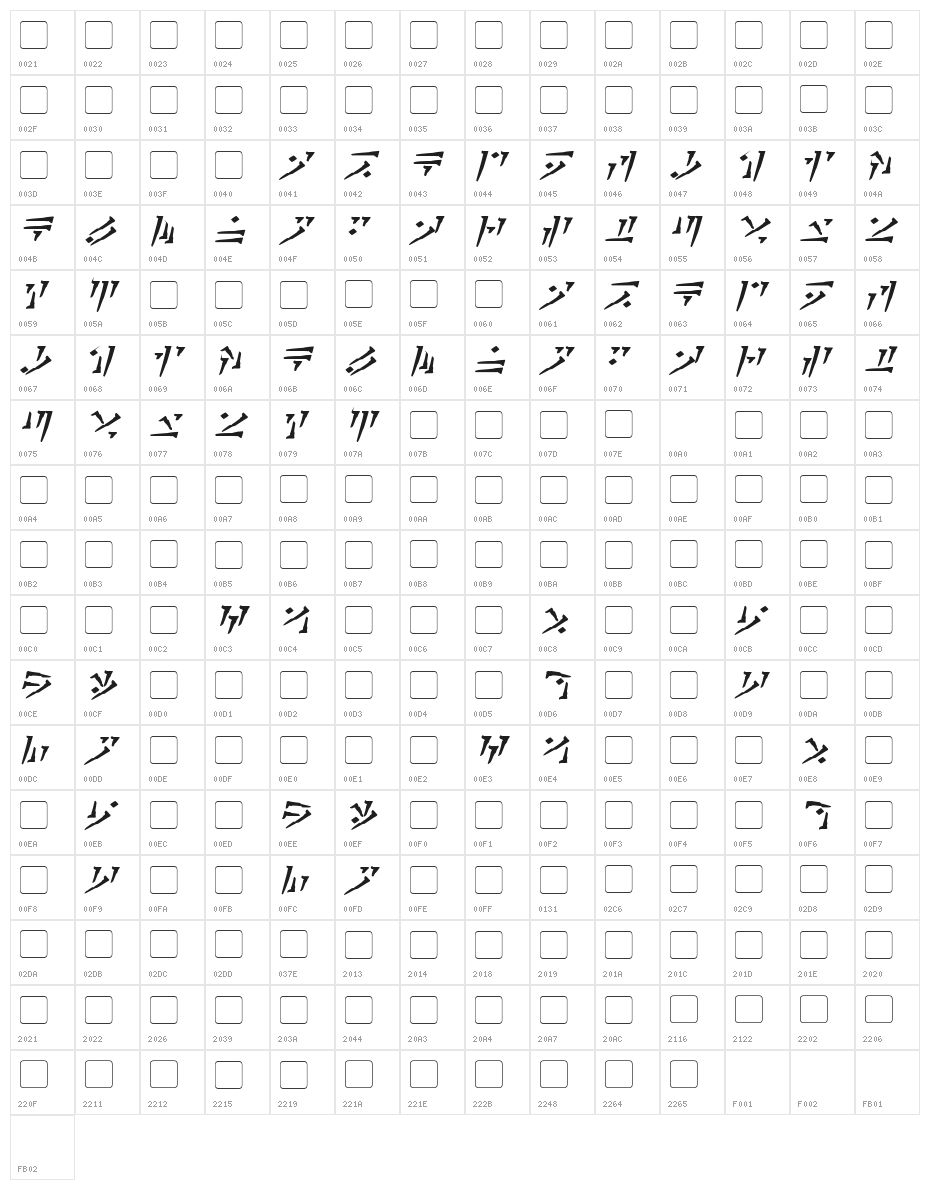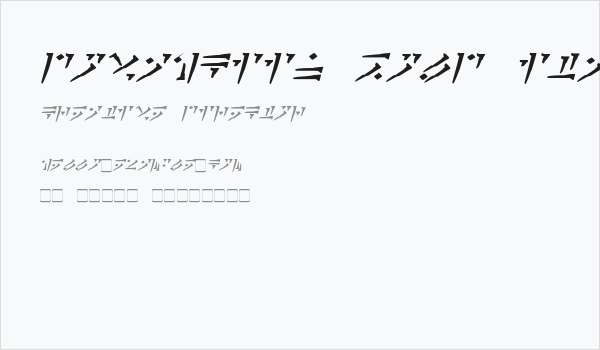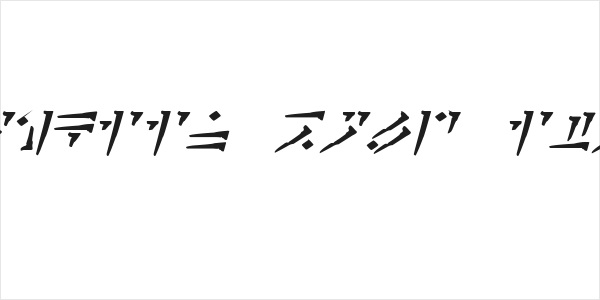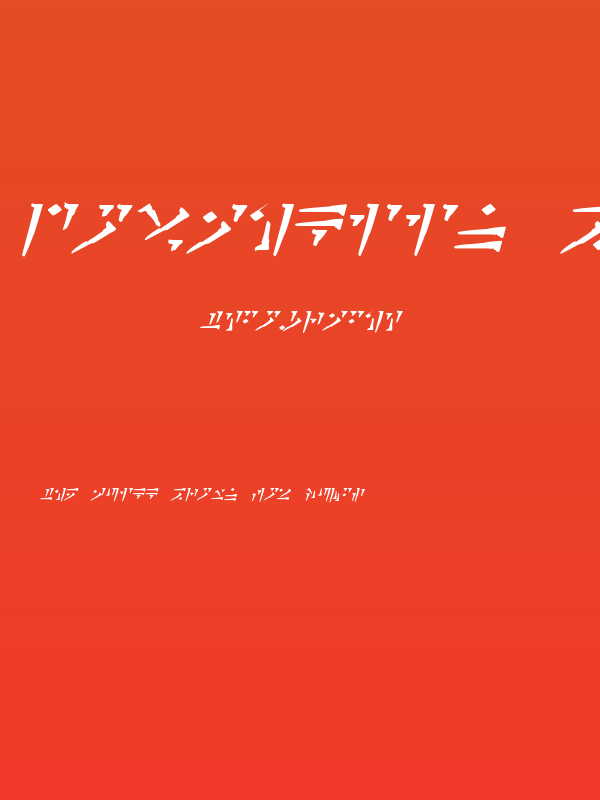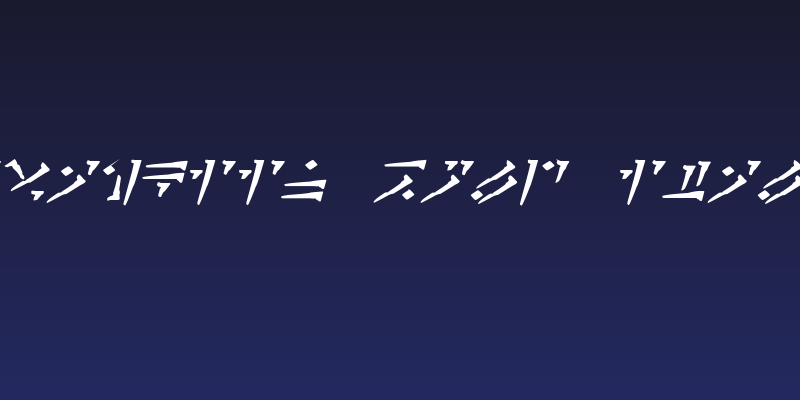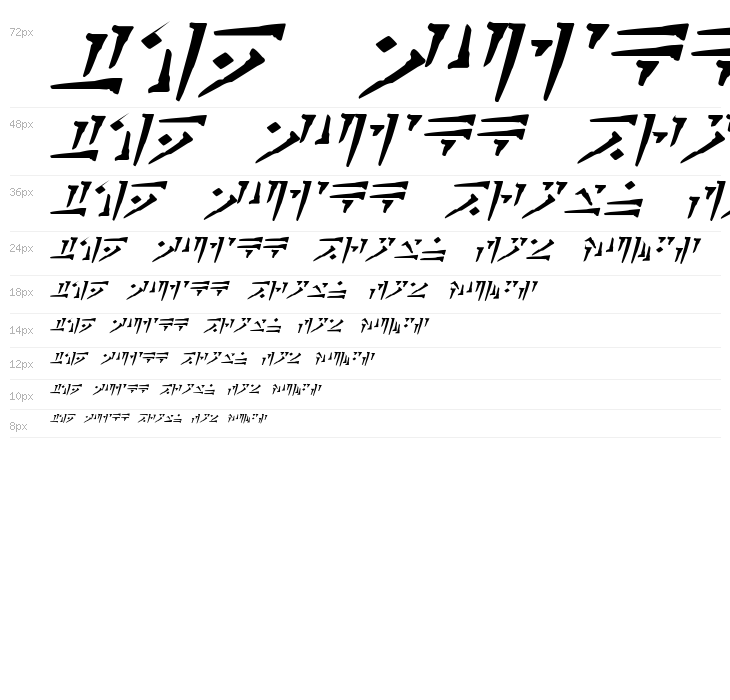
Dovahkiin Bold Italic Font
Dovahkiin Bold Italic Description
This font features a bold and italicized style with a unique, angular design that resembles ancient runes or glyphs. The characters have sharp edges and a dynamic slant, giving them a sense of movement and energy. The strokes are thick and consistent, contributing to a bold appearance. This font is highly decorative, making it suitable for thematic or fantasy-related projects. The spacing between characters is relatively tight, enhancing the compact and cohesive look of the text.
| Use Case | Logos, Headlines, Thematic Designs |
| Proposed Projects | Ideal for fantasy-themed designs, video game titles, movie posters, or any project requiring a mystical or ancient aesthetic. |